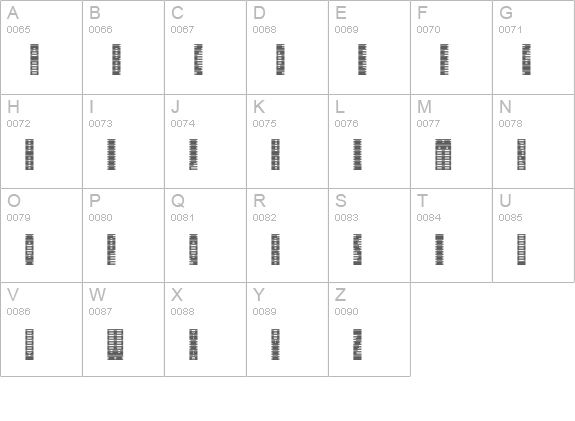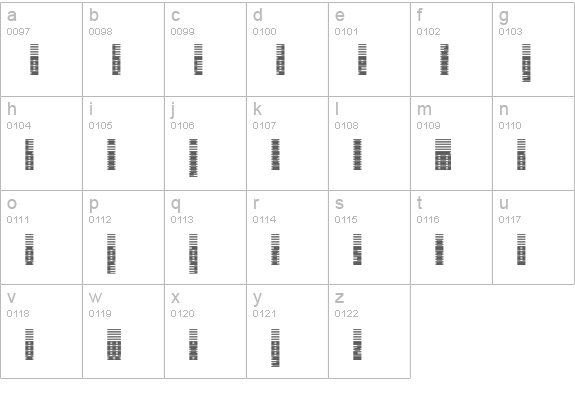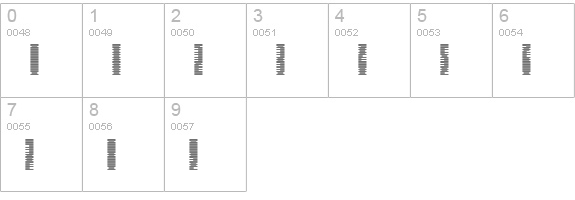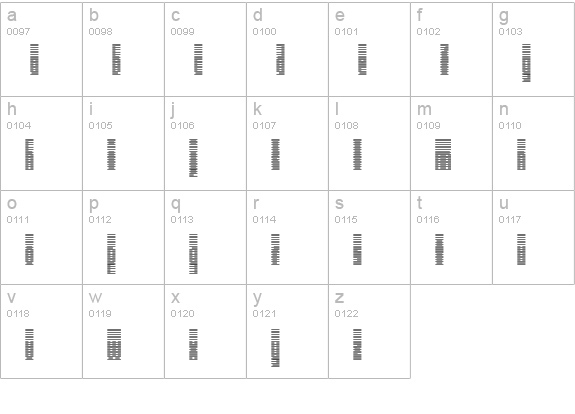
Deeter Condensed is a distinctive, condensed-width variant in the Deeter typeface family \xE2\x80\x94 well suited to design and typography projects.
Deeter Condensed font is a modern and stylish typeface that exudes elegance and sophistication. Its condensed design makes it perfect for creating eye-catching headlines, logos, posters, and more. With its clean lines and sleek appearance, Deeter Condensed font is sure to make a statement in any design project. The best part? Deeter Condensed font is available for free download at FontsMarket.com. Whether you're a designer looking for a versatile typeface or just someone who appreciates beautiful fonts, Deeter Condensed font is a must-have addition to your collection. Get your hands on this stunning font today and elevate your designs to the next level.